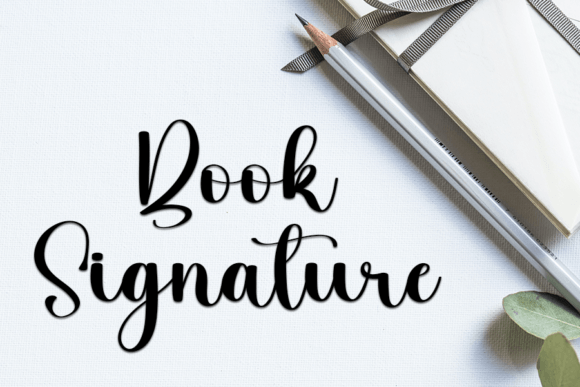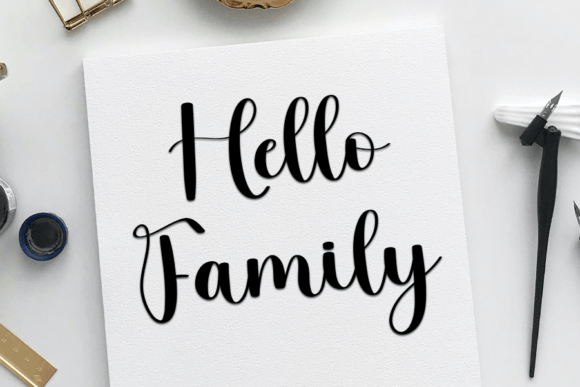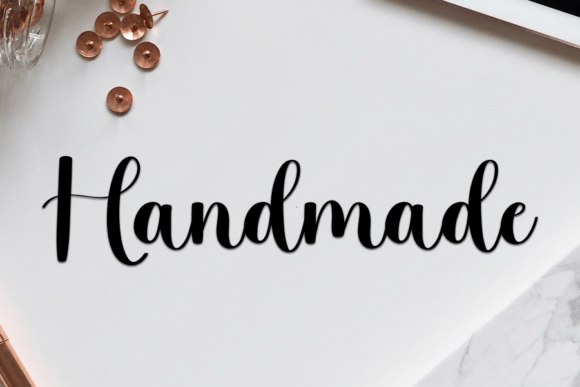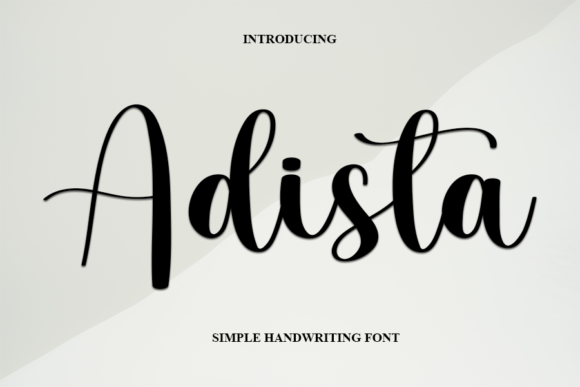
Introducing Adista Font: The Delicate Handwritten Font for Unique Designs
Are you a designer or crafter looking for a font that can add a touch of elegance and uniqueness to your designs? Look no further than Adista Font, a delicate handwritten font carefully crafted for a cool and distinctive look. In this article, we’ll dive into the features and benefits of Adista Font, and explore how it can be used to elevate your designs.
What is Adista Font?
Adista Font is a beautiful, handwritten font designed to bring a touch of sophistication and whimsy to your designs. With its delicate lines and curves, Adista Font is perfect for creating unique and eye-catching designs that stand out from the crowd. Whether you’re designing invitations, titles, or product labels, Adista Font is the perfect choice.
Features of Adista Font
So, what makes Adista Font so special? Here are just a few of its key features:
- Delicate lines and curves: Adista Font features delicate lines and curves that give it a light, airy feel.
- Handwritten style: Adista Font has a beautiful, handwritten style that’s perfect for creating unique and personalized designs.
- Cool and unique design: Adista Font is carefully crafted to have a cool and distinctive look that’s sure to turn heads.
- Versatile: Adista Font can be used for a wide range of design projects, from invitations and titles to food products and more.
Uses for Adista Font
So, how can you use Adista Font in your designs? Here are just a few ideas to get you started:
- Invitations: Adista Font is perfect for creating beautiful, one-of-a-kind invitations for weddings, parties, and other special events.
- Food products: Adista Font can add a touch of elegance and sophistication to labels and packaging for food products, such as baked goods, chocolates, and more.
- Titles and headings: Adista Font is great for creating eye-catching titles and headings for blogs, websites, and other digital projects.
- Stationery: Adista Font can be used to create beautiful, unique stationery sets, including notecards, journals, and more.
Why Choose Adista Font?
So, why should you choose Adista Font for your design projects? Here are just a few reasons:
- Unique and distinctive: Adista Font is a one-of-a-kind font that’s sure to help your designs stand out from the crowd.
- Elegant and sophisticated: Adista Font has an elegant, sophisticated look that’s perfect for creating high-end designs.
- Versatile: Adista Font can be used for a wide range of design projects, making it a great addition to any designer’s toolkit.
In conclusion, Adista Font is a beautiful, delicate handwritten font that’s perfect for designers and crafters looking to add a touch of elegance and uniqueness to their designs. With its cool and distinctive look, Adista Font is sure to help your designs stand out from the crowd. Whether you’re designing invitations, titles, food products, or more, Adista Font is the perfect choice.